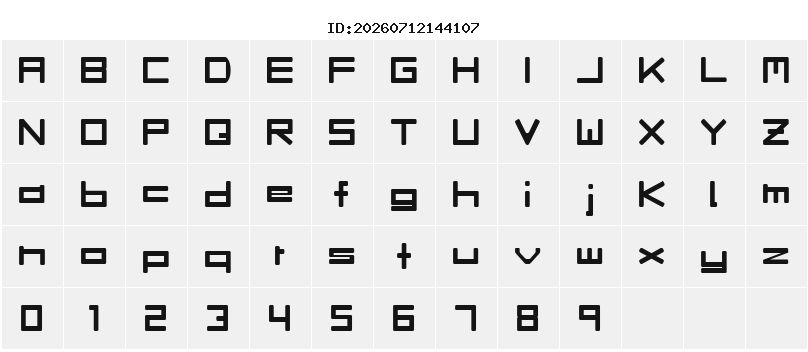
• Font Name: Rave
• Font ID: Rave
• Full Font Name: Rave
• PostScript Name: Rave
About Rave.ttf
Rave.ttf is a modern, elegant sans-serif font designed for ultimate readability and visual harmony. Perfect for branding, headlines, web design, and print materials.